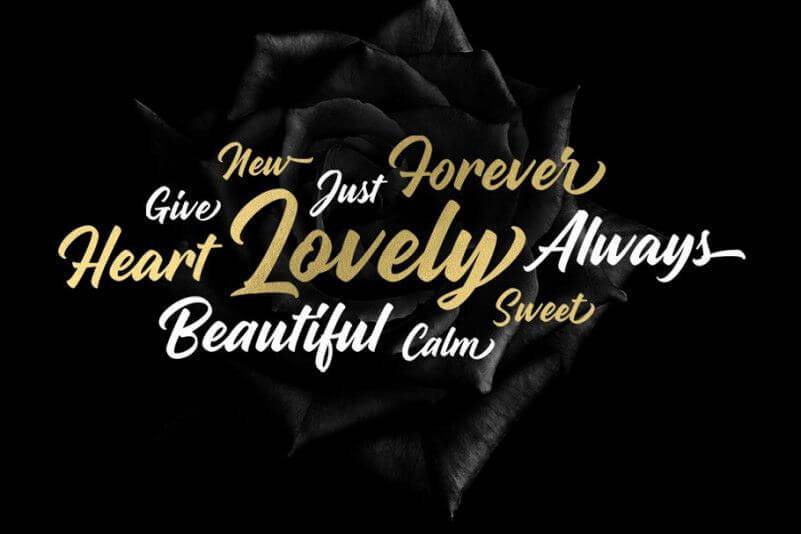
Madame Script Font
Madame Font is a lovely script and calligraphy typeface. The Font appears to be attractive and classy, with a handwritten feel to it. It will enhance the style and artistic value of your design work. StereoType created it and made it public. On November 1, 2019, the Font was released. You must first extract the fonts from the ZIP or RAR file before installing them. Windows 10/8/7 (64-bit) By right-clicking on the Font, you may install it.
OS X (Macintosh Operating System) is a computer operating system developed by Apple. To install the Font, double-click it. From the drop-down option, choose “Install font.” The Font has a beautiful bold texture within it as a calligraphy font. The Font is available for personal use. If a designer likes to have a vibe of elegance and boldness, this Font is perfect for that designer. The Font might get used for many purposes cause it has few features which are quite flexible to use.
Madame Script is ideal for branding projects, logos, wedding designs, social media posts, commercials, product packaging, product designs, label, photos, watermarks, invitations, stationery, and any other projects that require a touch of handwriting. The Font looks fantastic on almost any form of high-resolution wallpaper. The Typeface might also be used for any form of writing.
| Name | Madame Script Font |
| Style | Script, Calligraphy |
| Designer | StereoType |